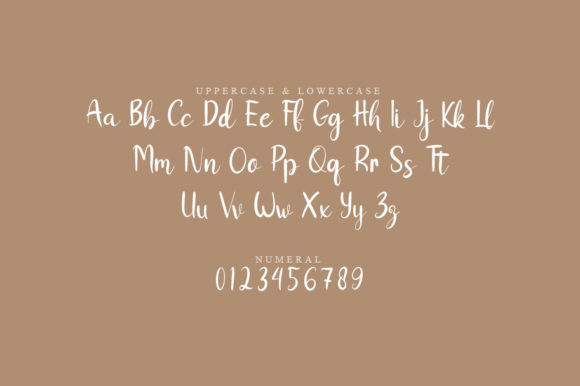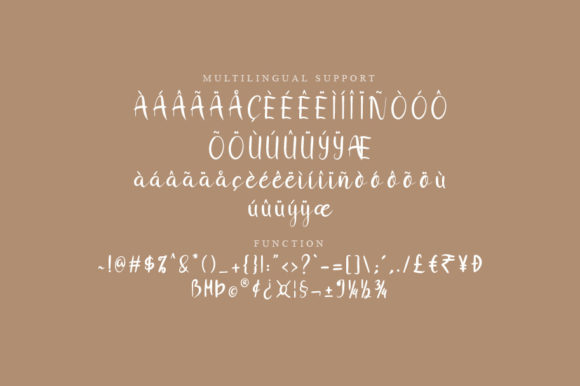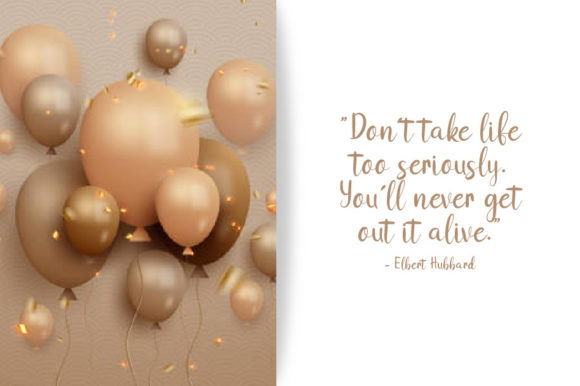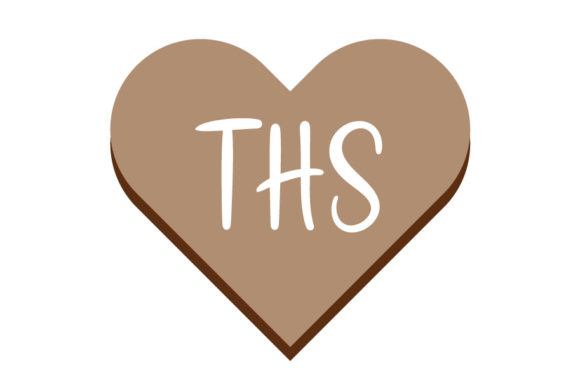
Discover the Charm of Choglat Font: A Timeless Handwritten Script
Are you a designer or crafter looking for a unique and beautiful font to elevate your creative projects? Look no further than the Choglat Font, a lovely and timeless handwritten script that is sure to capture your audience’s attention. In this article, we’ll explore the features and benefits of Choglat Font, and why it’s the perfect choice for creating eye-catching logos, branding, and quotes.
The Unique Touch of Choglat Script
What sets Choglat Font apart from other fonts is its distinctive and beautiful touch. Every letter has been carefully crafted to showcase a unique character, making it perfect for designers who want to add a personal touch to their work. Whether you’re creating a logo, branding materials, or social media graphics, Choglat Font is sure to make your design come alive.
Features of Choglat Font
- Handwritten script: Choglat Font is a handwritten script font, giving it a personal and organic feel that’s perfect for creative projects.
- Unique lettering: Each letter has a unique and beautiful touch, making it perfect for designs that require a personal touch.
- Elegant and timeless: Choglat Font has an elegant and timeless quality that makes it suitable for a wide range of design applications.
- Easy to read: Despite its unique character, Choglat Font is easy to read, making it perfect for use in quotes, branding, and other designs where legibility is important.
Why Choose Choglat Font?
So why choose Choglat Font for your design projects? Here are just a few reasons why Choglat Font stands out:
- Versatility: Choglat Font is versatile and can be used in a wide range of design applications, from logos and branding to social media graphics and quotes.
- Uniqueness: Choglat Font’s unique lettering ensures that your designs will stand out from the crowd and capture your audience’s attention.
- Ease of use: Choglat Font is easy to use and can be easily integrated into your design workflow.
- Timeless appeal: Choglat Font has a timeless quality that ensures your designs will remain fresh and relevant for years to come.
Using Choglat Font in Your Designs
So how can you use Choglat Font in your designs? Here are a few ideas to get you started:
- Logos: Use Choglat Font to create a unique and memorable logo that showcases your brand’s personality.
- Branding: Use Choglat Font to create consistent branding across all your marketing materials, from business cards to social media graphics.
- Quotes: Use Choglat Font to create eye-catching quotes that showcase your favorite inspirational sayings.
- Social media graphics: Use Choglat Font to create engaging social media graphics that capture your audience’s attention.
Tips for Getting the Most Out of Choglat Font
Here are a few tips for getting the most out of Choglat Font:
- Experiment with colors: Choglat Font looks great in a variety of colors, so don’t be afraid to experiment and find the perfect color scheme for your design.
- Mix and match: Try mixing and matching Choglat Font with other fonts to create a unique and eye-catching design.
- Pay attention to spacing: Make sure to pay attention to spacing and kerning to ensure that your design looks professional and polished.
| Font Name | Choglat Font |
| Author | khalwa.studio |